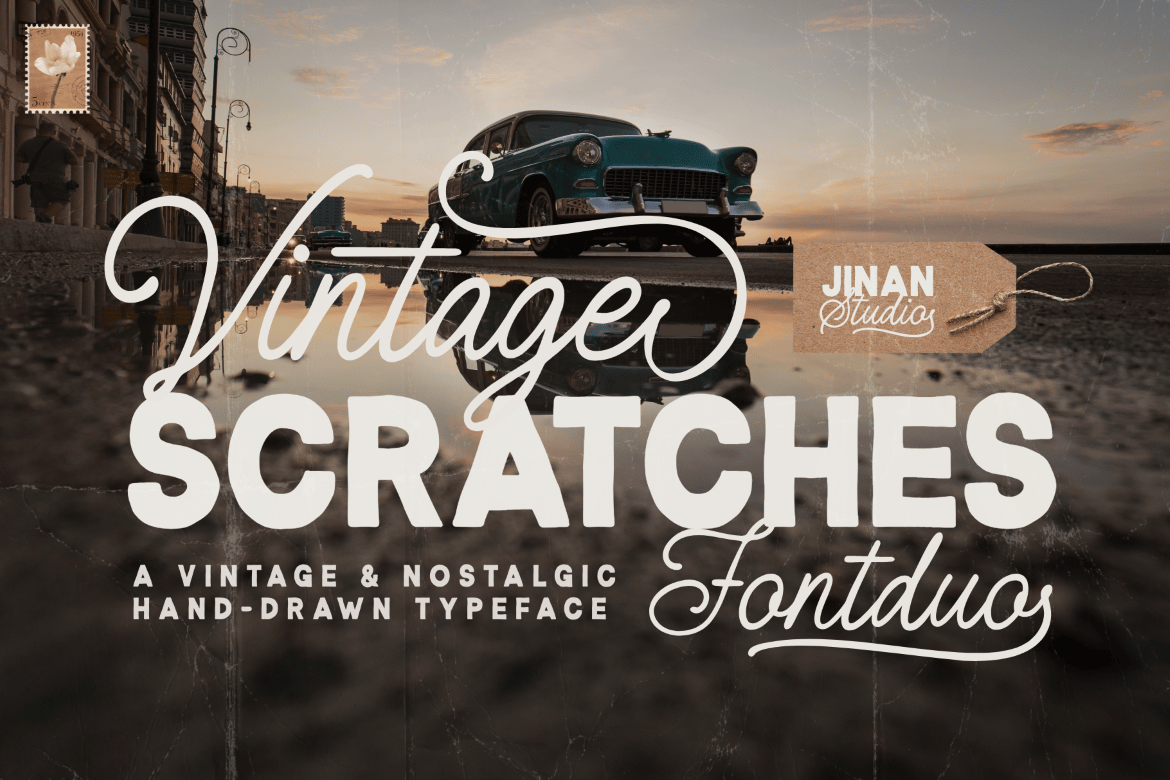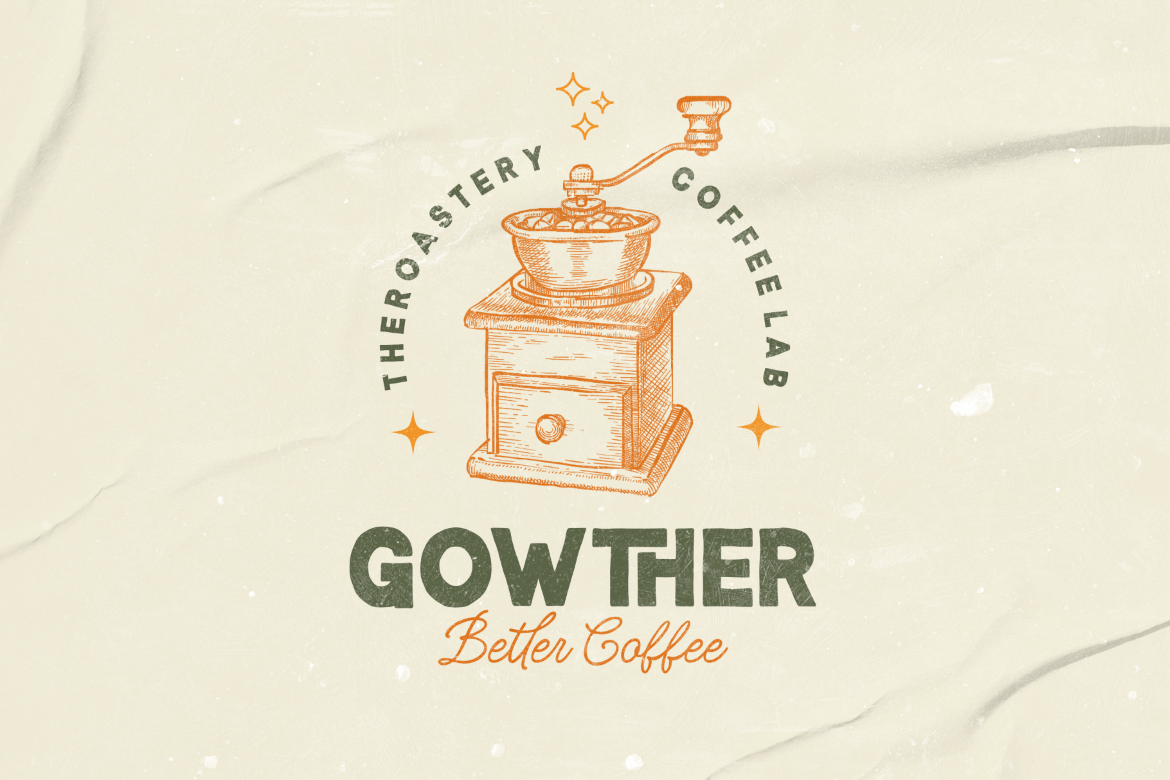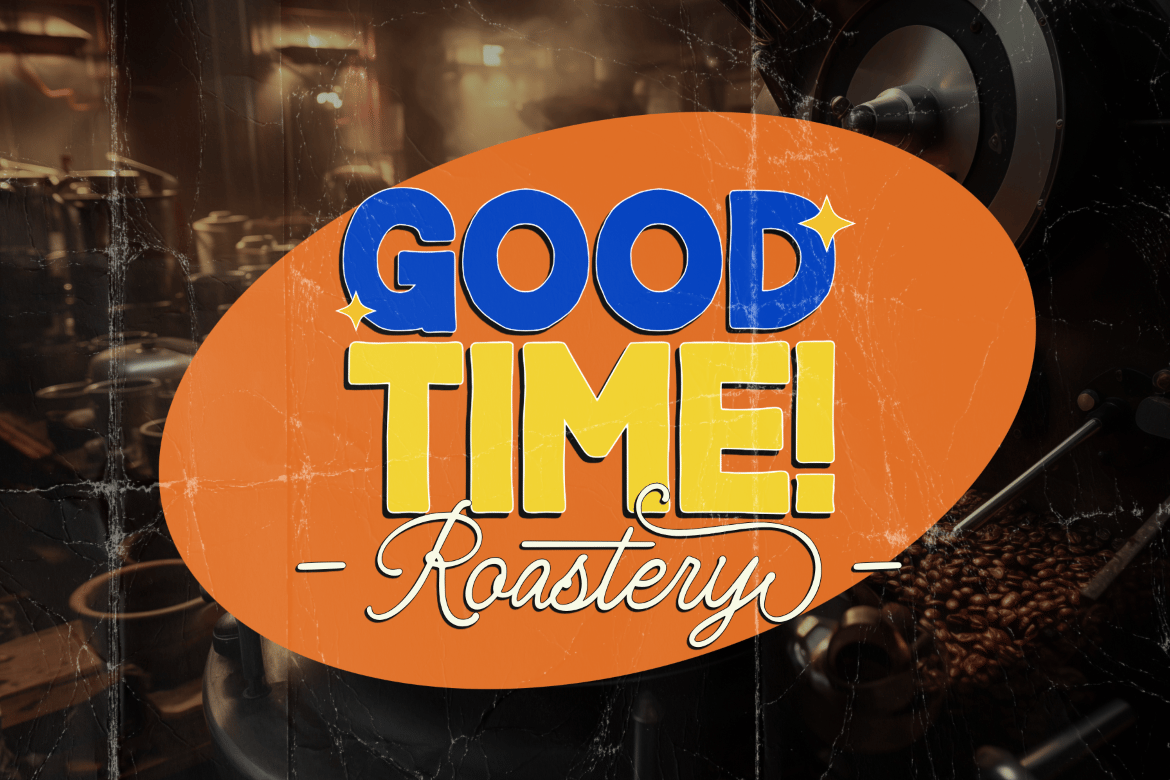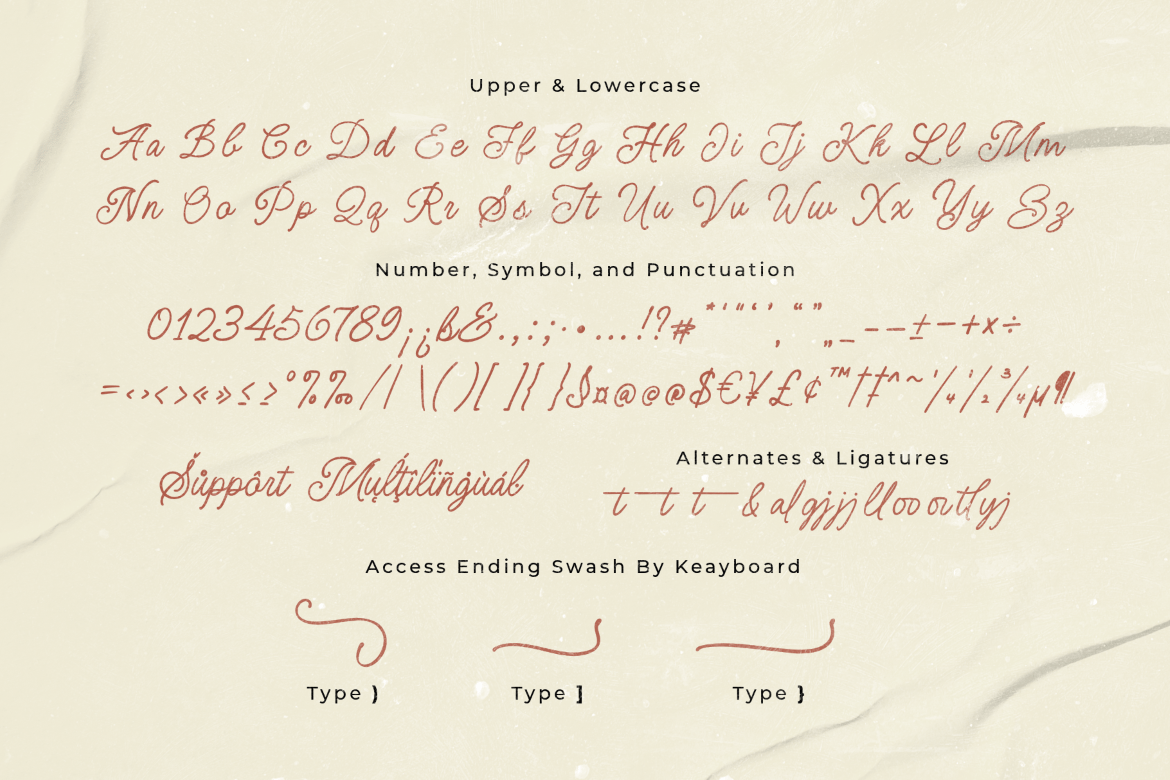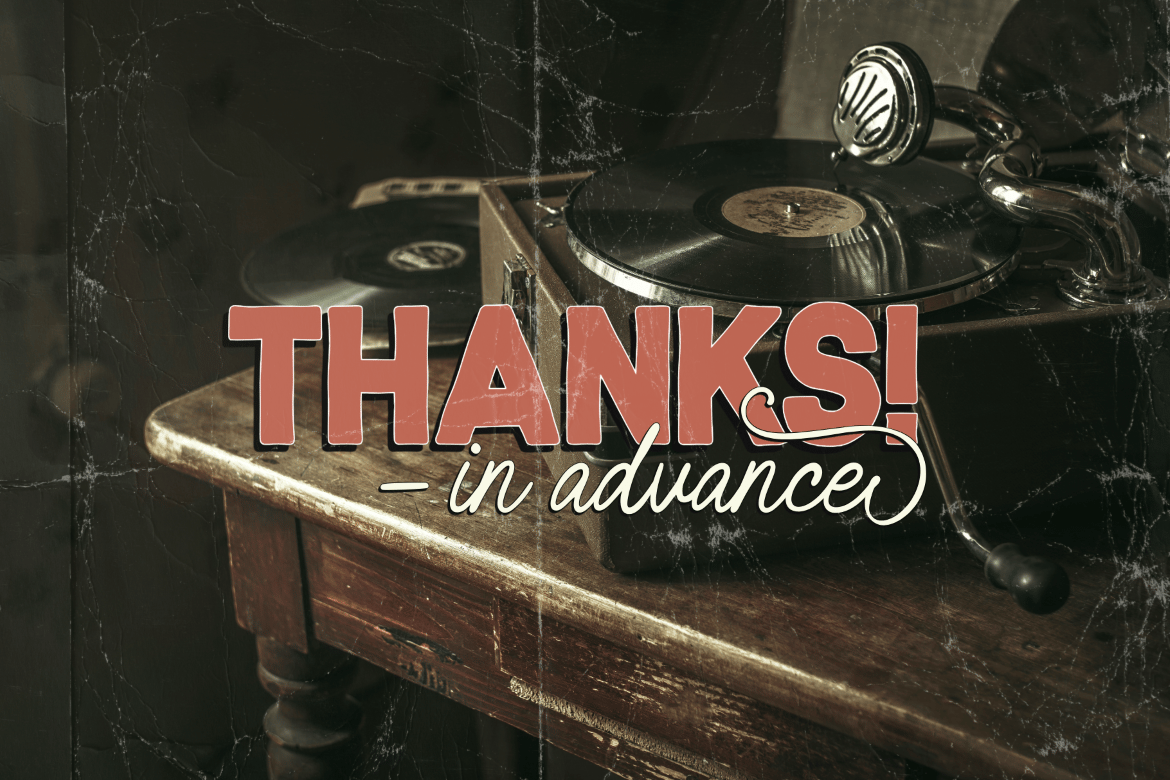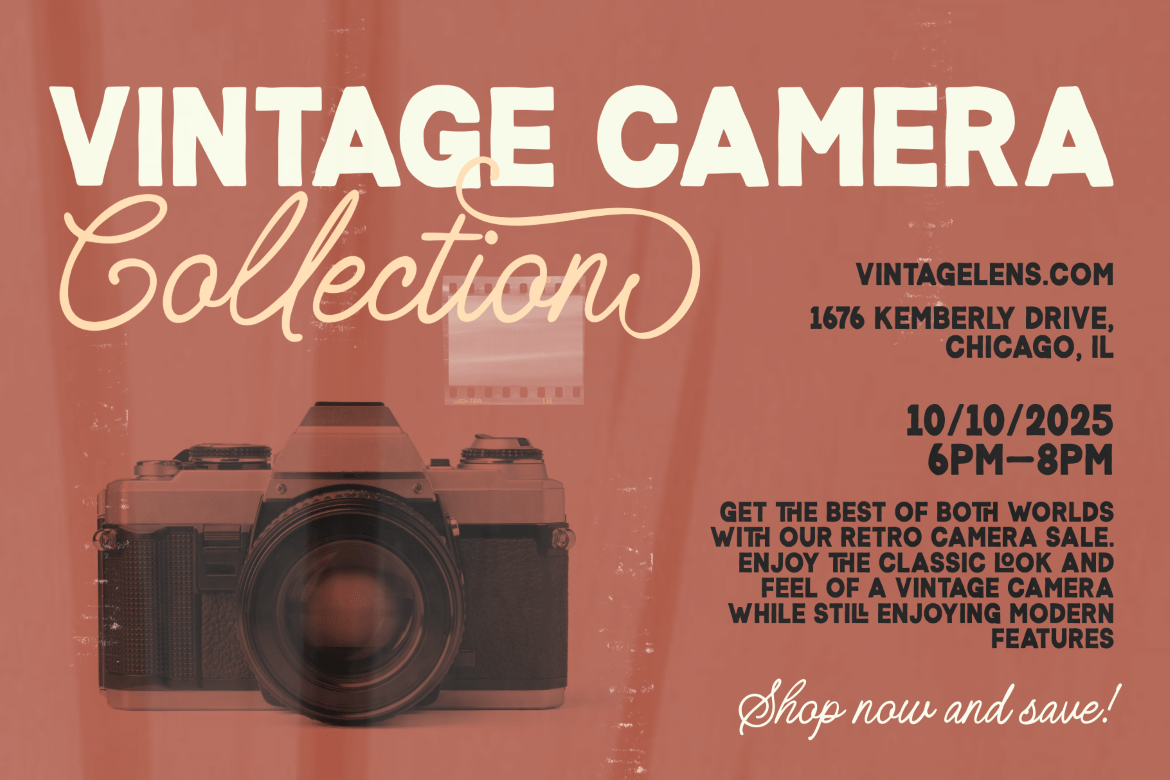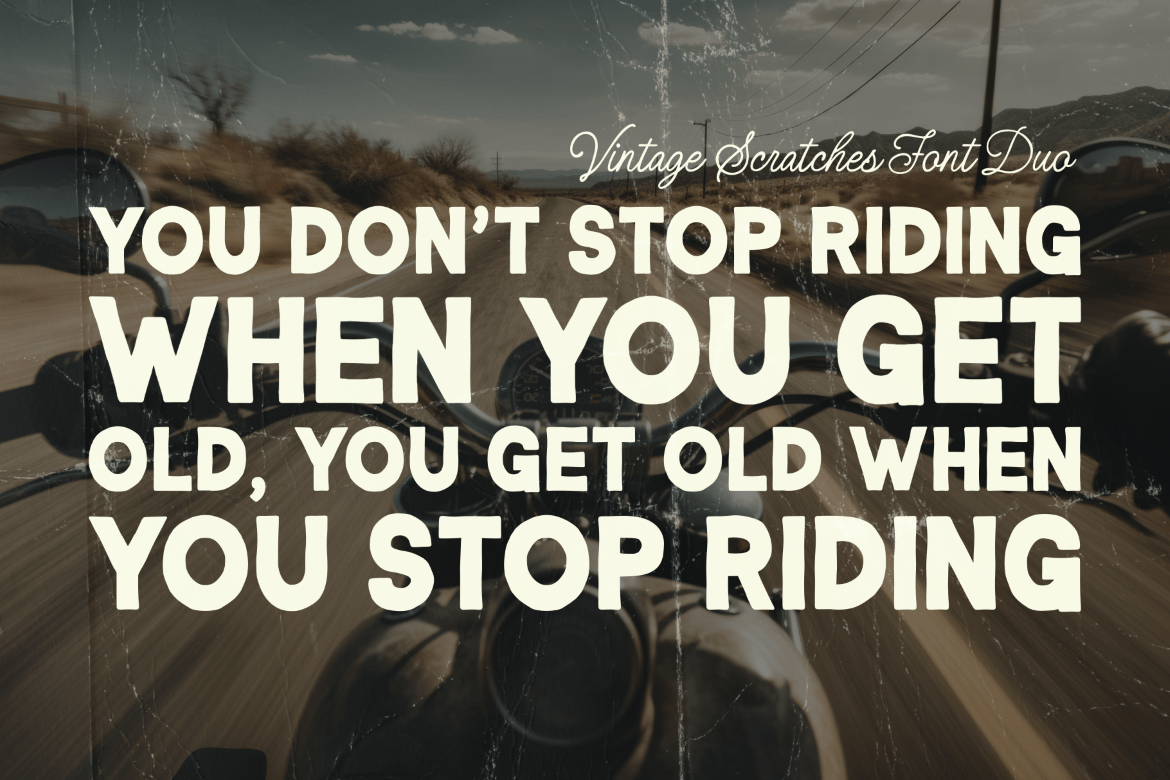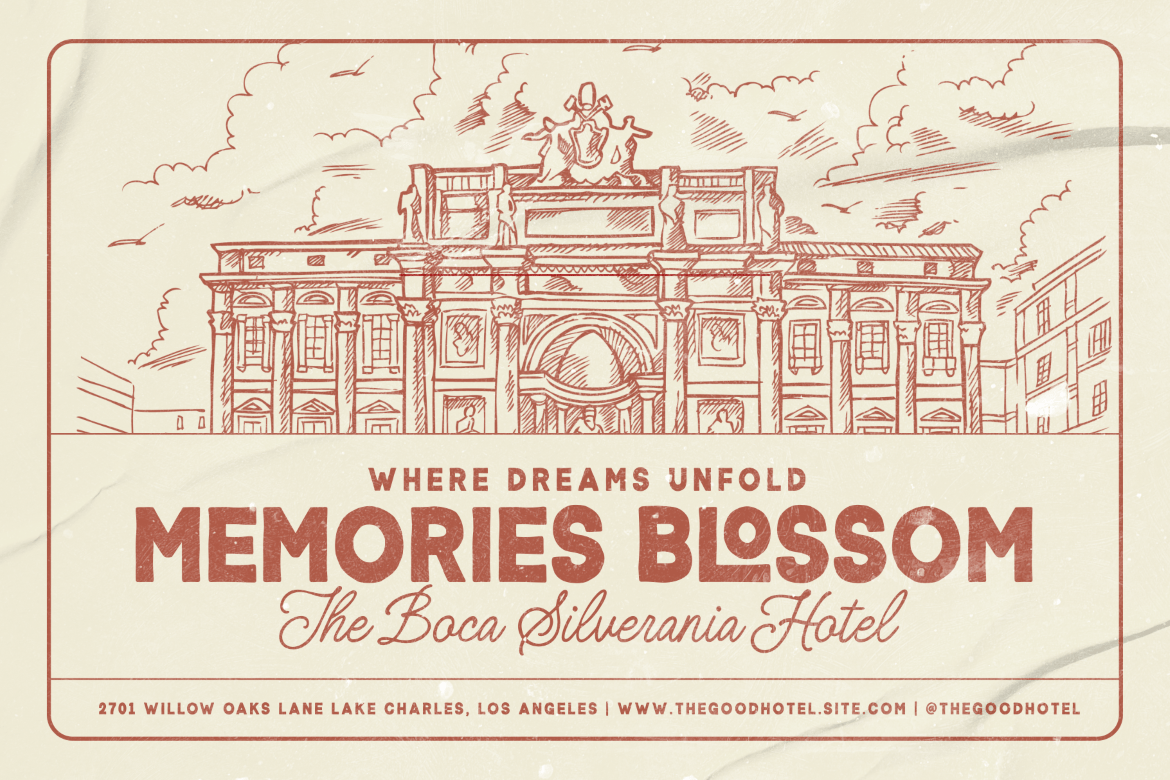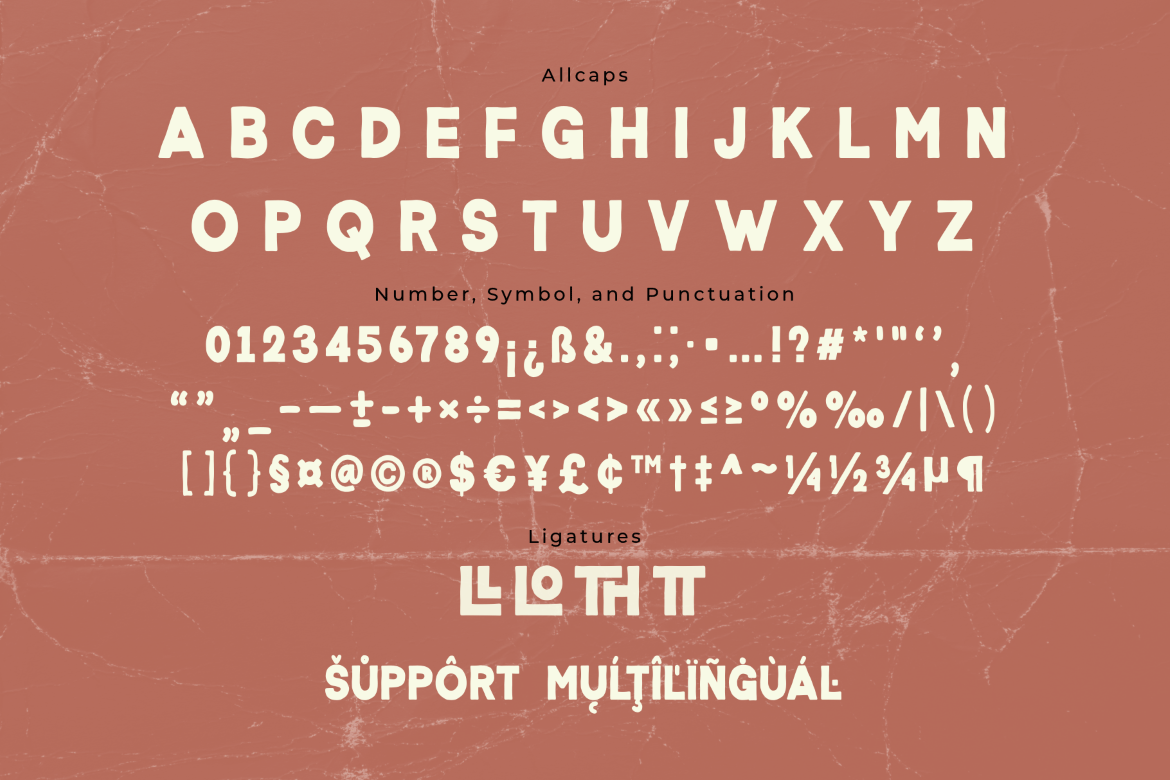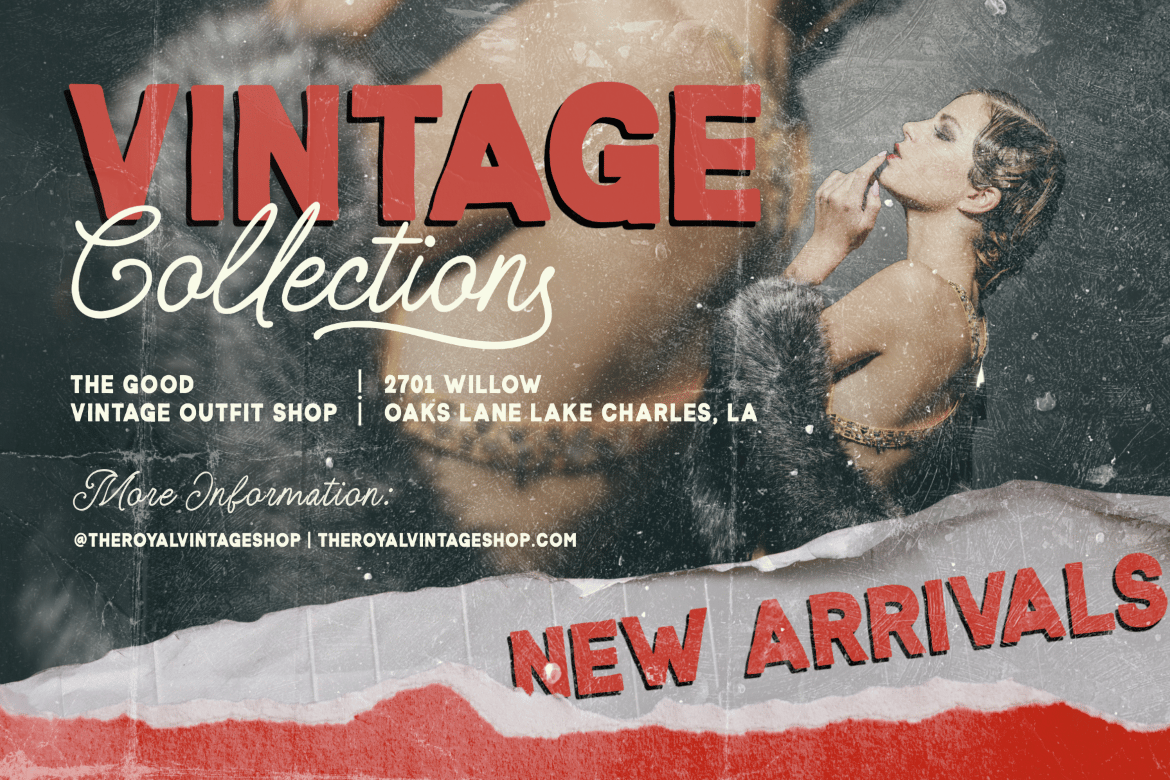
Vintage Scratches Font Duo
Vintage Scratches is a font duo that brings a vintage touch to your designs. It combines hand-written script and sans serif styles, adding a classic and classy vibe to any project.
With unique characters and alternate options, Vintage Scratches allows you to customize your design effortlessly. The script version even includes special swashes accessible through your keyboard.
This font duo is not only stylish but also practical, with multi-language support for versatile use in various projects. Whether you’re designing posters, logos, or other print materials, Vintage Scratches adds a memorable vintage feel to your work.
- Alternates and ligatures
Access Swashes by keyboard
- key parenright ) to feature ending swash 1
- key bracketright ] to feature ending swash 2
- key braceright } to feature ending swash 3
For Example: type Vintage)